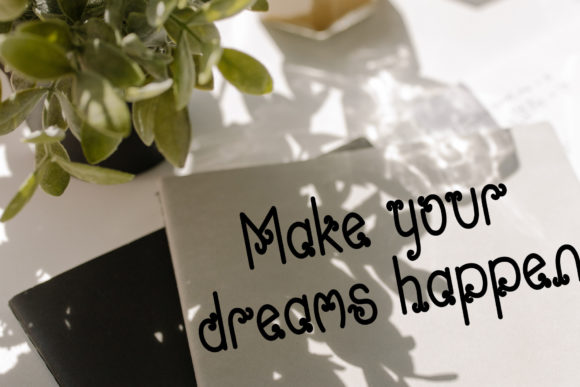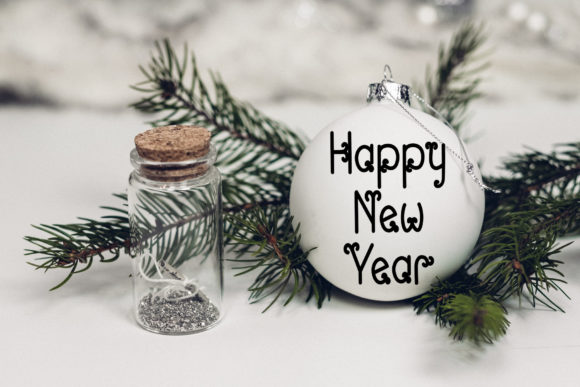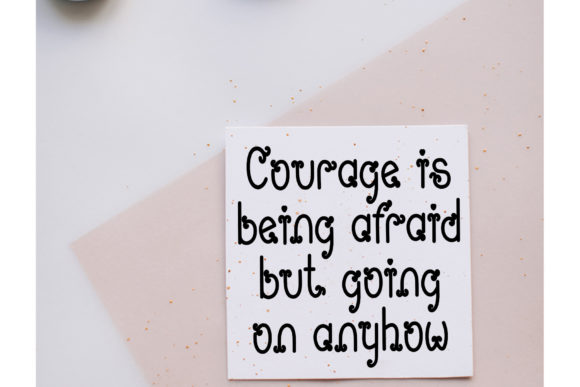
The Sweet Charm of Animasi Font: A Designer’s Delight
I’ll never forget the time I was working on a whimsical stationery set for a client, and I just couldn’t find the perfect font to match the playful vibe. The project required a font that was both quirky and elegant, with a touch of sweetness. That’s when I stumbled upon Animasi Font, and it instantly became my go-to choice. In this article, I’ll share my love for this delightful display font, its features, and how to make the most of it in your designs.
An Honest Review of Animasi Font
- ✨ Unique and delicate swashes that add a touch of elegance to any design
- ✅ Perfect for display text, titles, and headings
- ✅ Highly versatile and can be used for various crafty ideas, from letterheads to stationery
- ✅ Easy to read and understand, even in smaller sizes
While Animasi Font is an amazing choice, there are a few things to keep in mind:
- ⚠️ Limited use for body text, as it’s primarily designed for display purposes
- 🤔 May not be the best choice for very formal or traditional designs
- Experiment with the OpenType features, such as swashes and stylistic alternates, to add more personality to your text
- Access the OpenType panel to explore glyphs, swashes, and stylistic alternates
The Backstory of Animasi Font
Animasi Font was designed with the intention of creating a unique and playful display font. The designer aimed to craft a font that would be perfect for creative projects, such as stationery, titles, and headings. With its delicate swashes and quirky feel, Animasi Font has become a favorite among designers and crafty hobbyists alike.
Q: What is Animasi Font best used for?
A: Animasi Font is best used for display text, titles, headings, and other creative projects where a touch of elegance and playfulness is desired.
Q: Is Animasi Font suitable for body text?
A: No, Animasi Font is primarily designed for display purposes and may not be the best choice for body text.